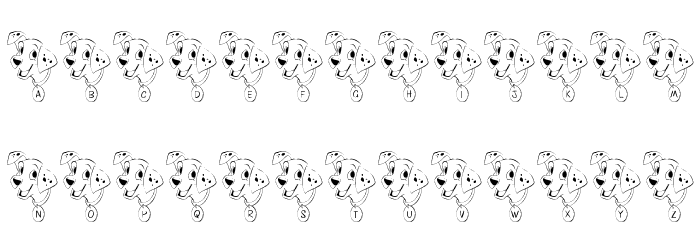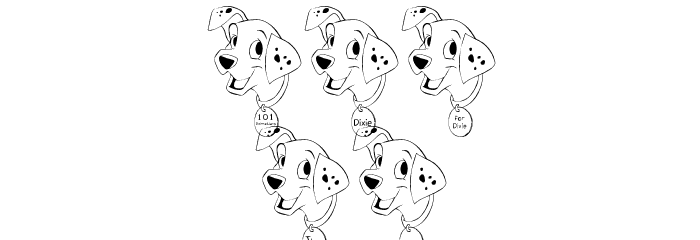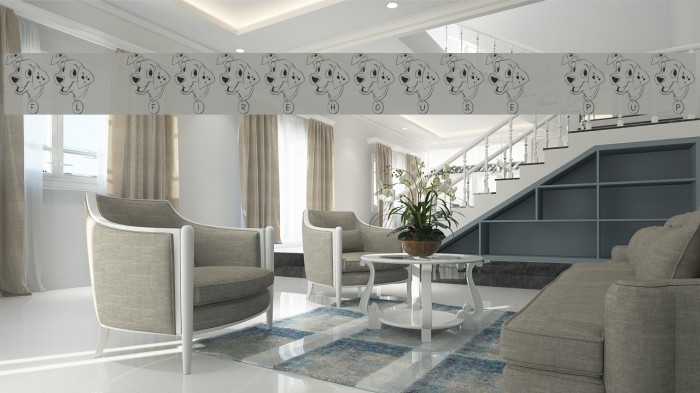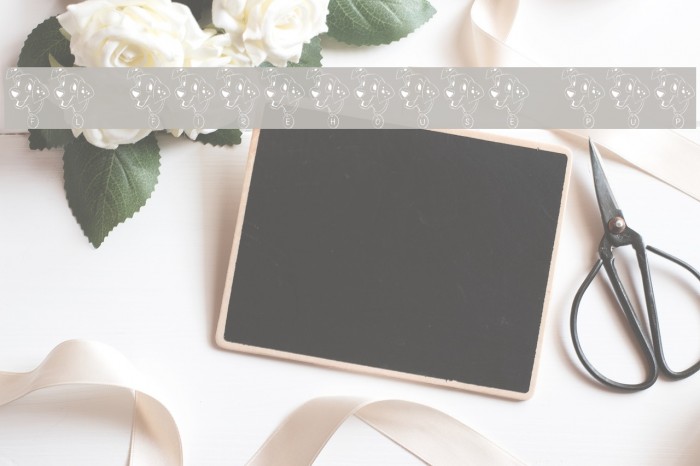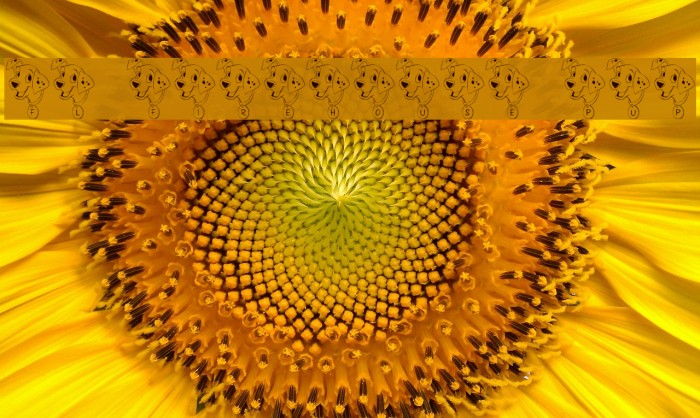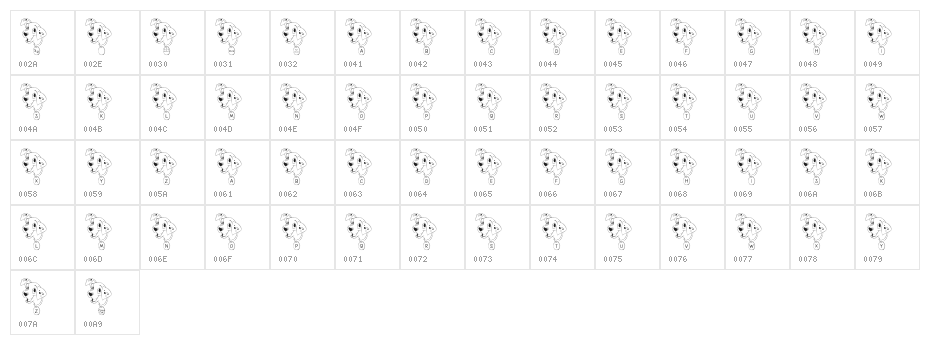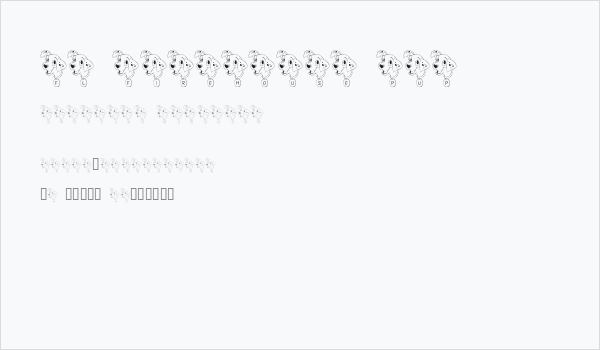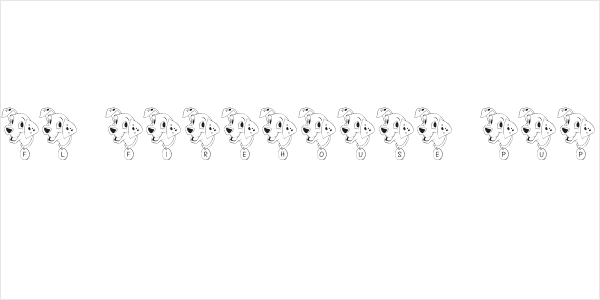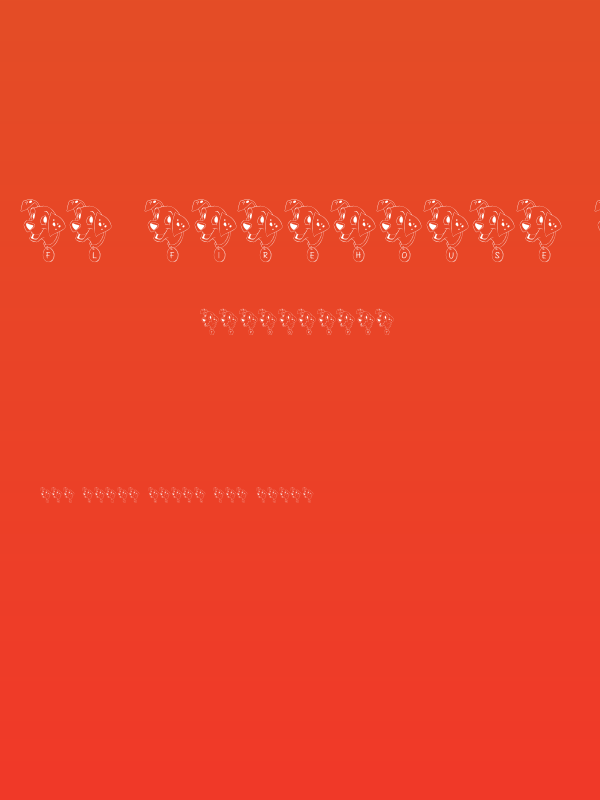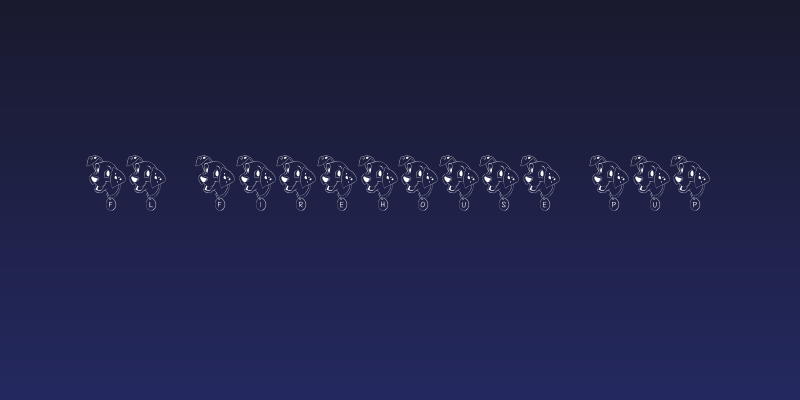
FL Firehouse Pup Font
This playful and whimsical font features a series of cartoonish dog illustrations, each representing a different character. The design is highly decorative, with each letter and number integrated into the dog's collar tag, creating a unique and engaging visual experience. The font is not suitable for traditional text but serves as a creative and fun element for specific design projects. The characters are consistent in style, maintaining a light-hearted and friendly appearance throughout the set. This font is perfect for projects aimed at children or for branding that requires a playful touch.
A whimsical font with cartoon dog illustrations representing each character.
- Font: FL Firehouse Pup
- Proposed Projects: Ideal for children's books, playful branding, pet-related products, and creative invitations.
- Overall Style: Playful, Whimsical
- Use Case: Logos, Decorative Elements